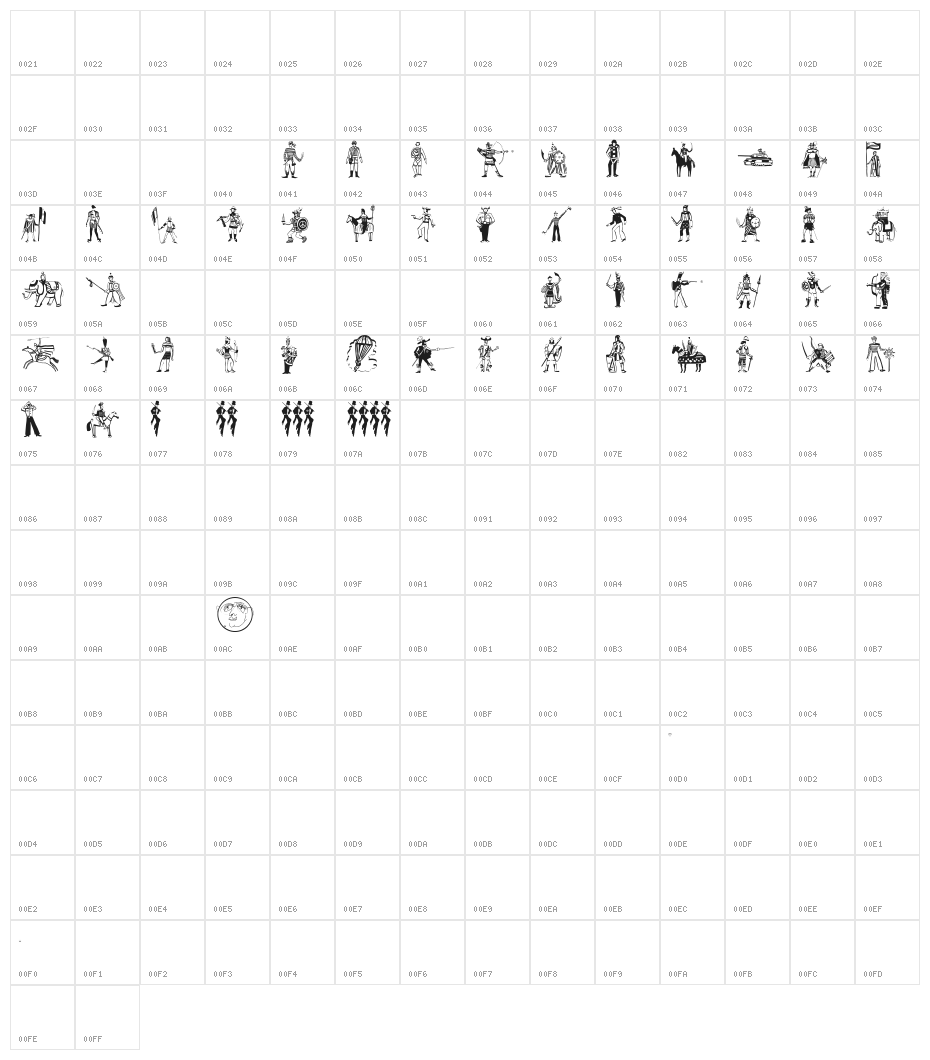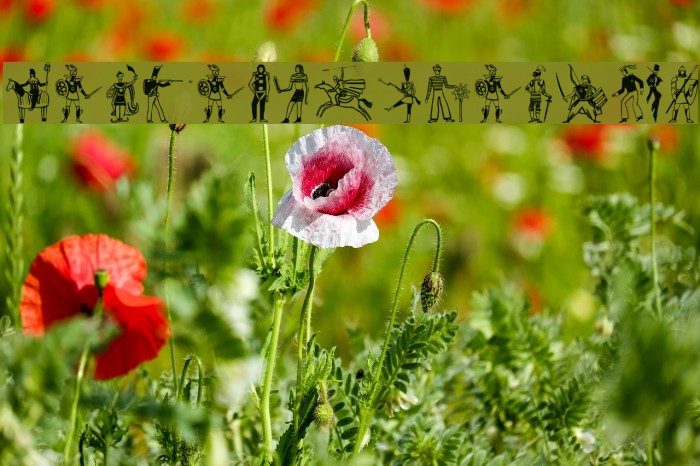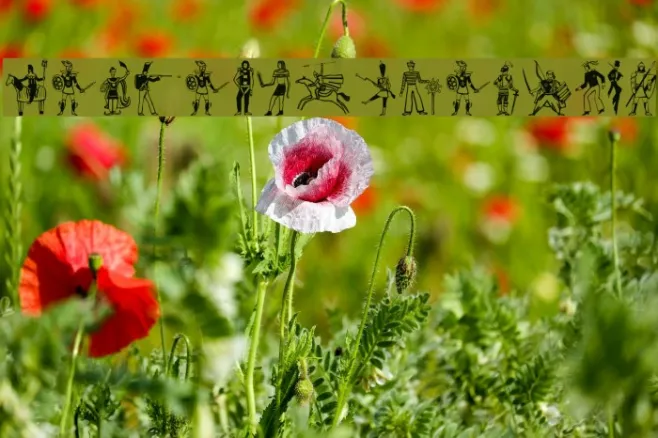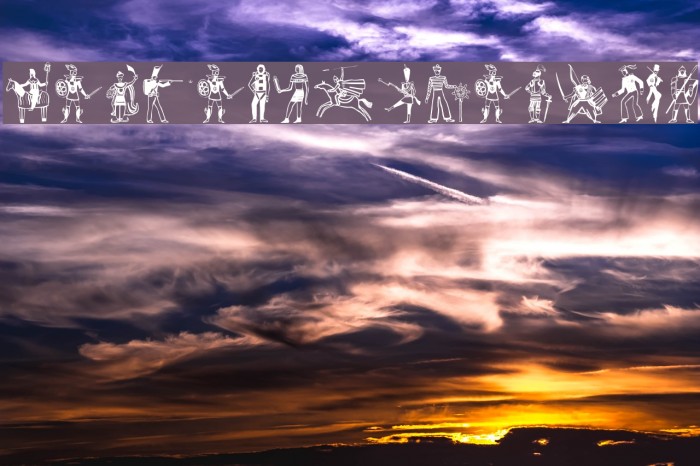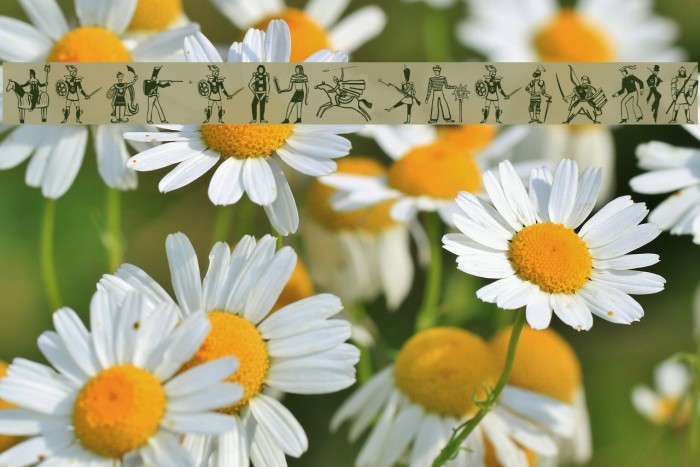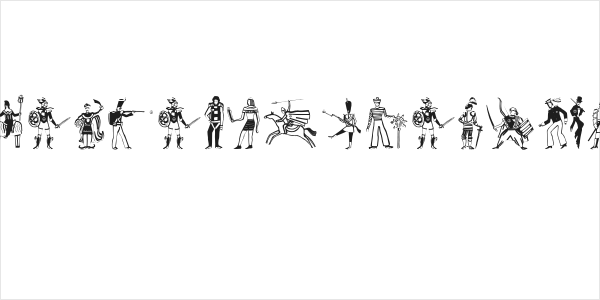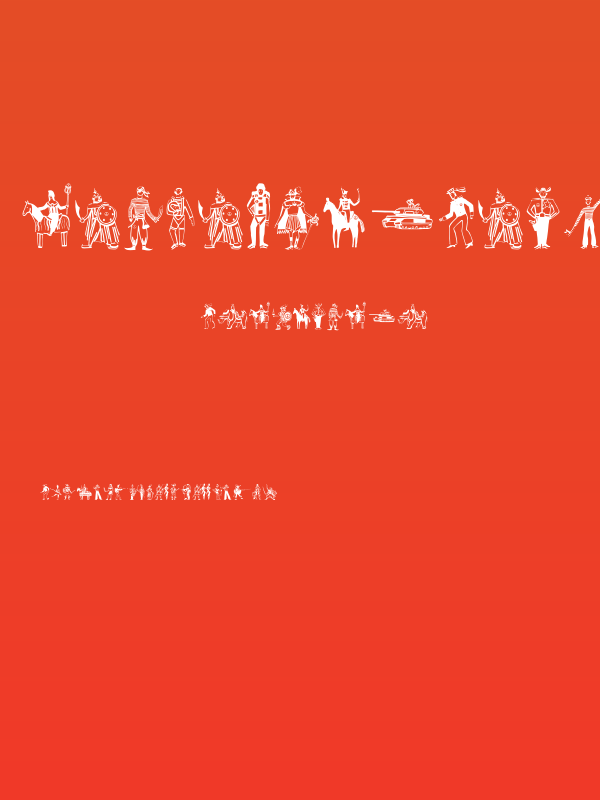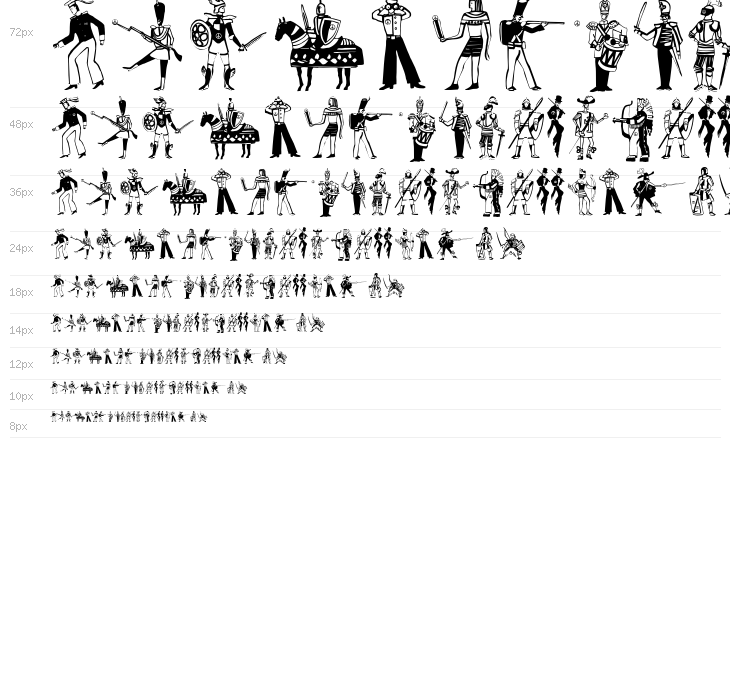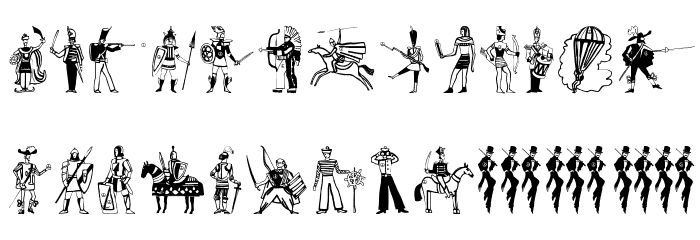
PeaceFightersTwo Font
PeaceFightersTwo Description
A highly decorative and illustrative font where each character is represented by a unique, detailed drawing of a soldier, warrior, or military figure from various historical periods and cultures. The glyphs are complex, featuring both human and animal figures, and are more pictorial than typographic.
| Overall Style | Decorative, Illustrative, Thematic |
| Use Case | Display, Posters, Themed Graphics, Educational Visuals |
| Proposed Projects | Posters, editorial illustrations, themed event materials, graphic novels, educational materials about history or peace. |